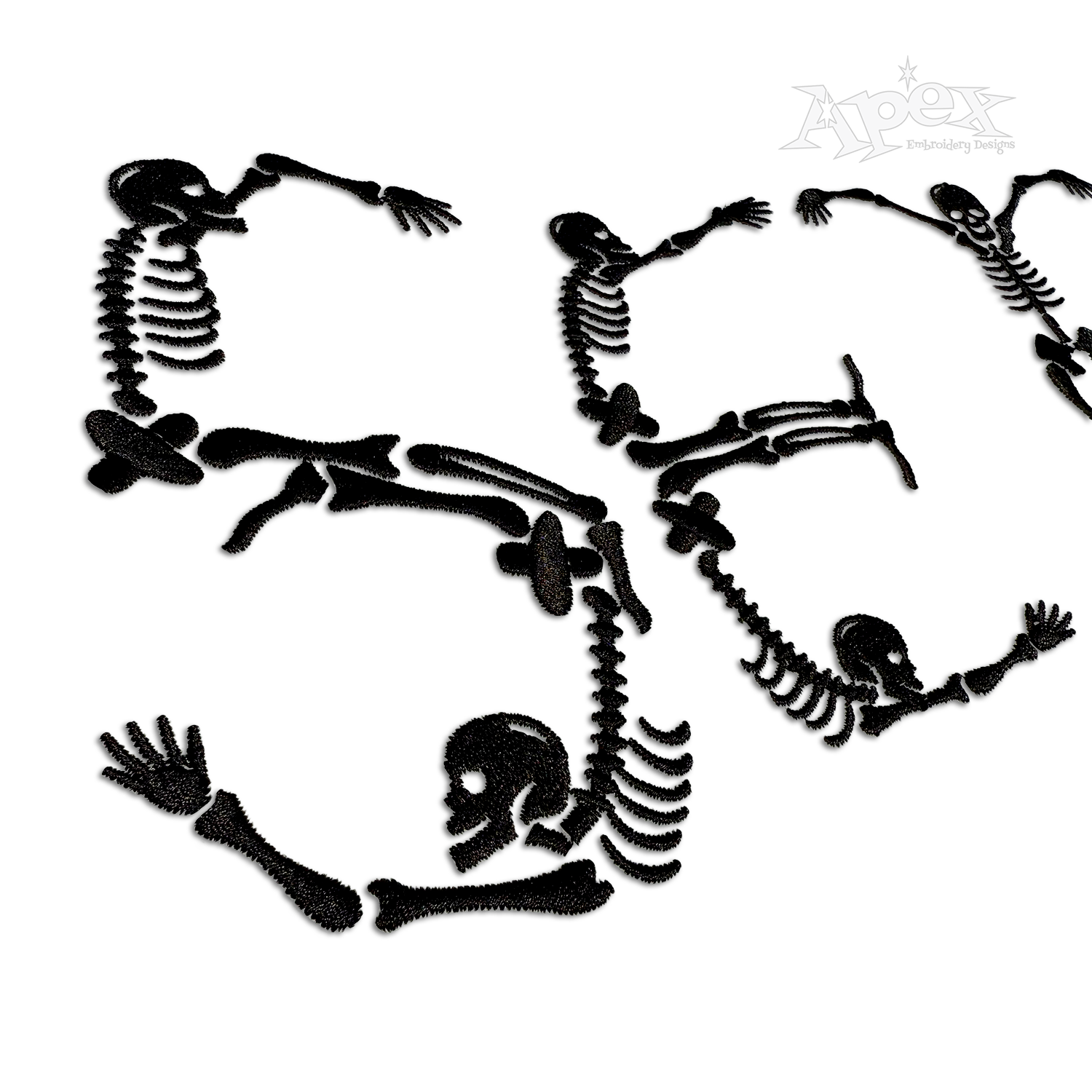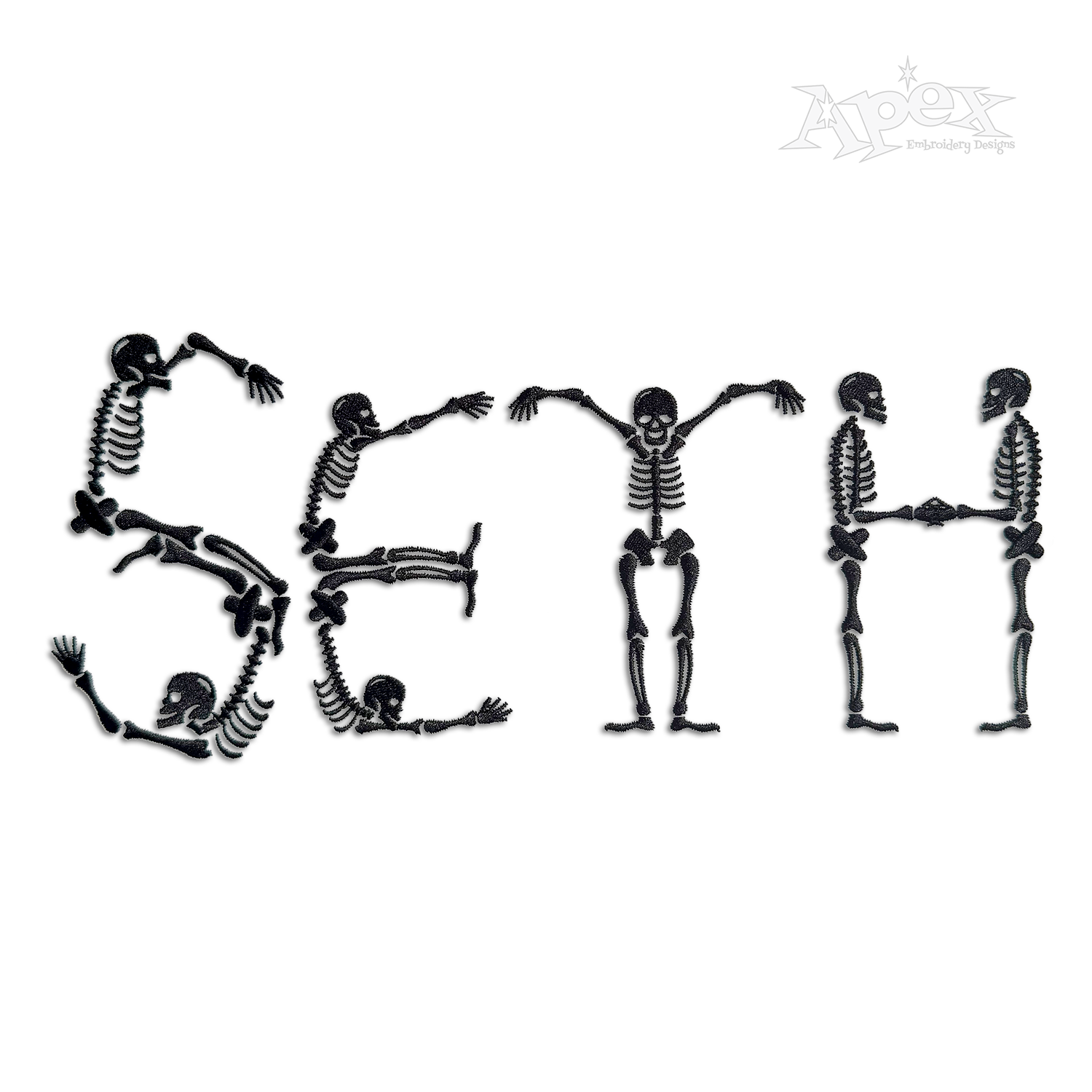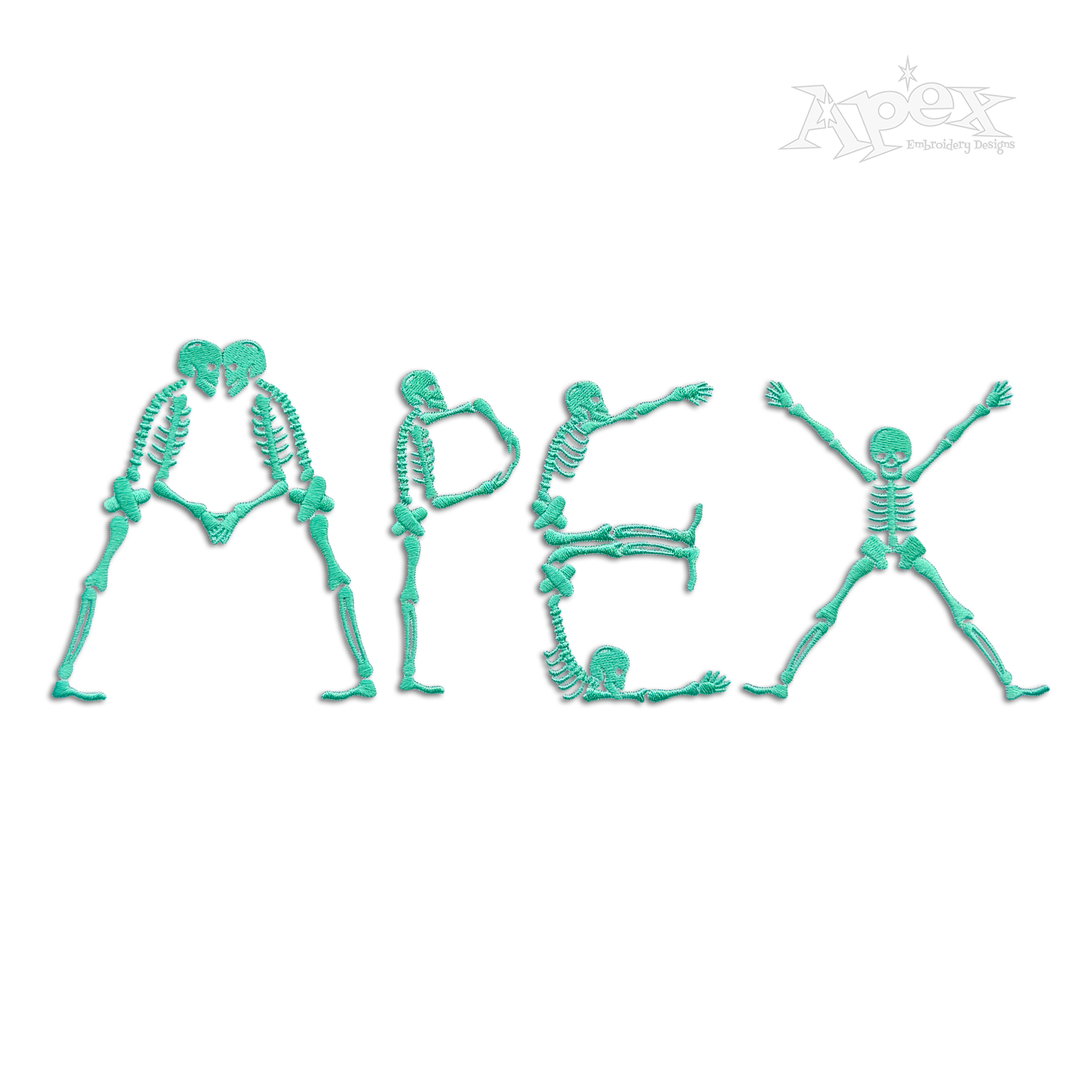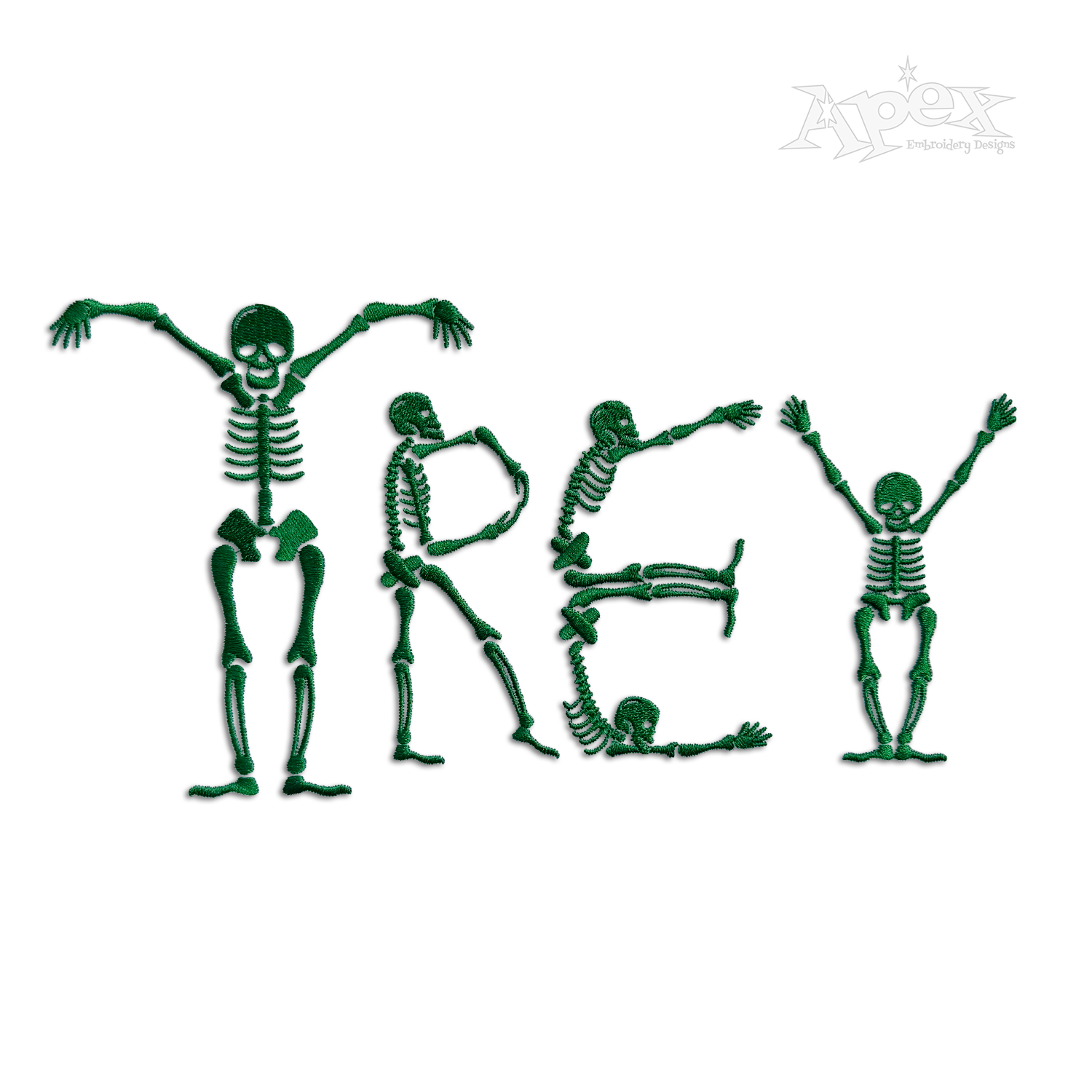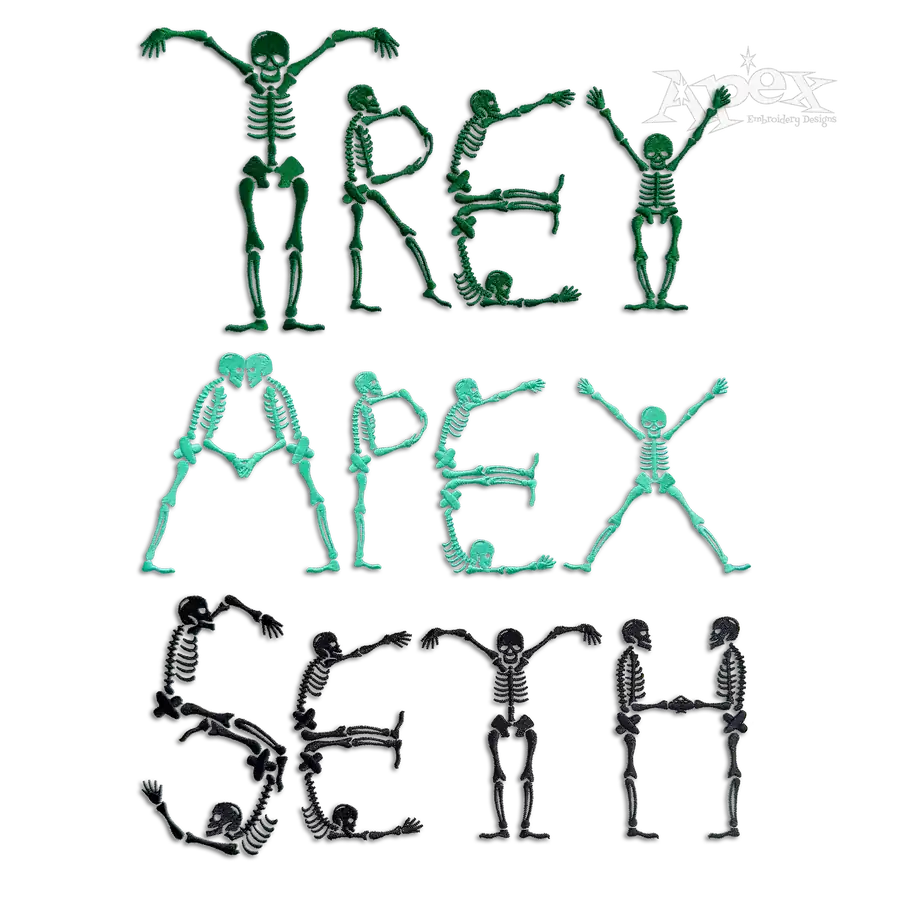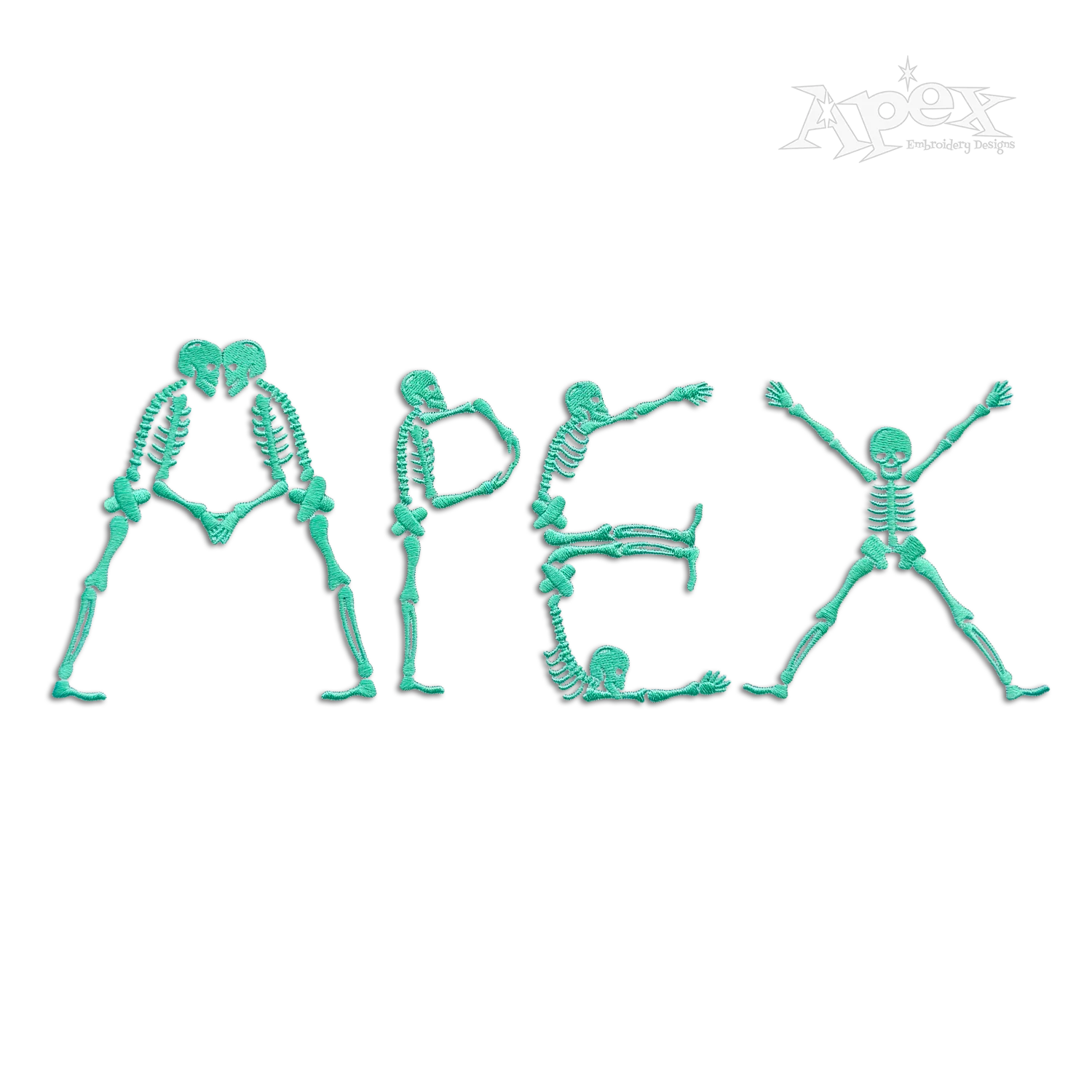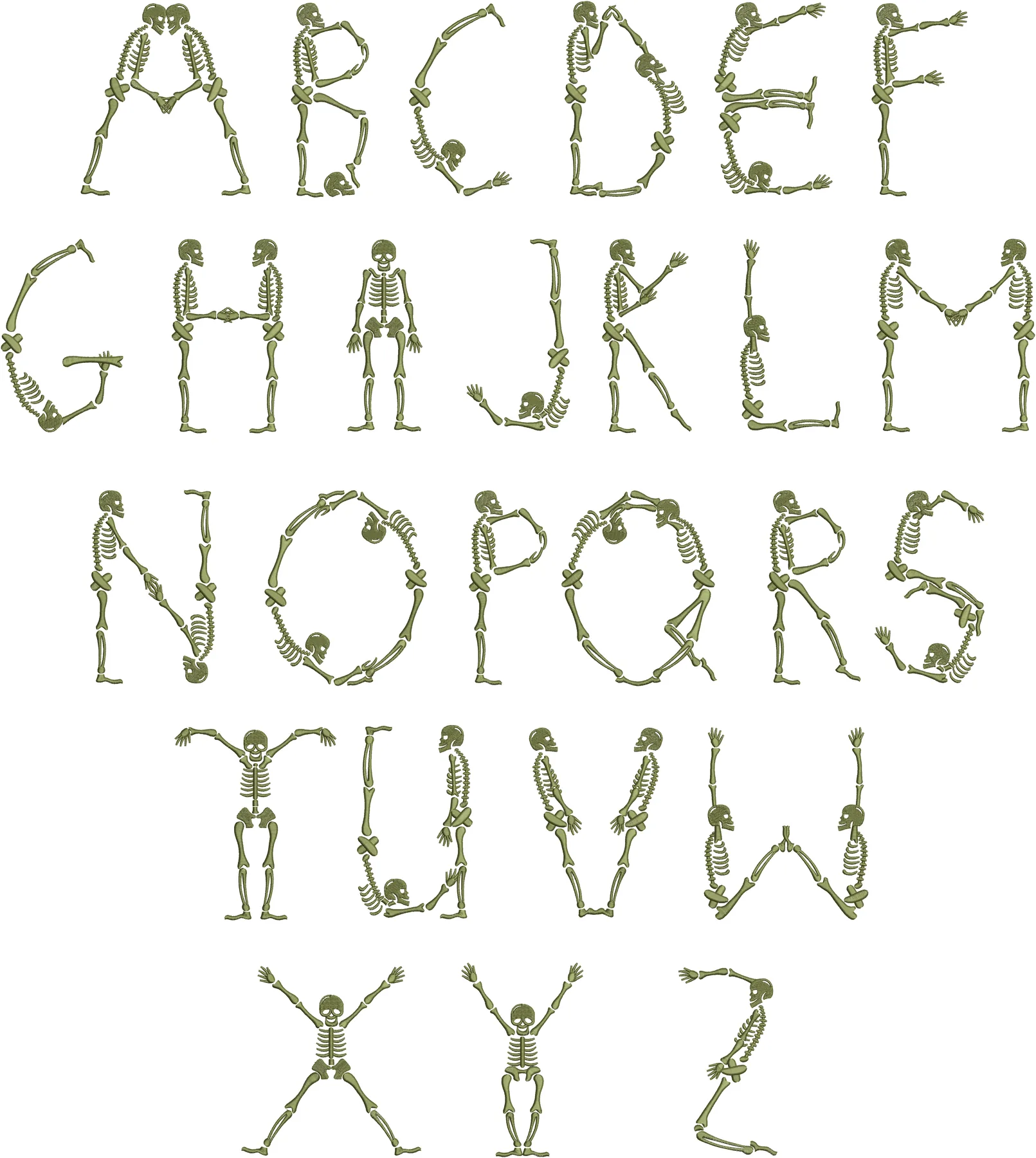
Skeleton Alphabet Embroidery Font
When autumn’s crisp chill sweeps through the studio, our embroidery needles turn toward the delightfully macabre. Inspired by vintage anatomical plates and playful gothic whimsy, the Skeleton Alphabet was digitized to bring an artisanal, bone-chilling charm to your seasonal embroidery hoop. Every letterform is thoughtfully assembled from stylized bone segments, curved rib arches, and articulated joints that form remarkably readable, expressive typography. The result is a spirited Halloween embroidery font that effortlessly balances eerie charm with sophisticated stitchcraft, ideal for statement autumn apparel and bespoke spooky decor.
Project Ideas for Skeleton Alphabet
Whether crafting playful seasonal wear or high-end gothic accents, these bone-structured letters add instant character to a wide array of textile goods:
- Canvas Trick-or-Treat Totes: Stitch an oversized 6-inch initial on heavy cotton duck or washed linen candy sacks for personalized heirloom Halloween keepsakes.
- Cozy Fall Sweatshirts: Create high-impact center chest initials on vintage-washed fleece pullovers or oversized hooded sweatshirts.
- Gothic Holiday Table Linens: Embroider contrasting ivory bone monograms onto moody black linen table runners and cocktail napkins for autumn dinner gatherings.
- Lounge Sets & Seasonal Sleepwear: Personalize the pocket or chest of pajama tops and brushed cotton robes for autumn family celebrations.
- Bespoke Wall Hangings & Pillows: Frame a singular 5-inch monogram inside seasonal wreath borders on velvet or heavy twill accent pillows.
Given the striking silhouette of skeletal joints and marrow contours, strategic placement helps the letterforms truly stand out:
- Center Chest Placement: The 5-inch and 6-inch sizes provide exceptional balance across the chest of sweatshirts, denim jackets, and casual sweaters.
- Tote Bag Focal Point: Position a bold initial directly in the upper-center third of canvas totes and seasonal grocery bags to maintain visual proportion when filled.
- Jacket Back Accents: Use the 6-inch height as a commanding solo initial or spell out spirited seasonal words across the shoulder blades of a distressed jacket.
- Accent Pillow Displays: Center a 4.5-inch or 5-inch letter on 18-inch square toss pillows to create a sophisticated, haunting living room accent.
Skeleton Alphabet Craft & Letterform Details
Digitizing skeletal forms requires an intricate balance between anatomical character and flawless stitch physics. Rather than relying on simple linework, each bone is sculpted using high-density satin stitches that curve organically along the natural contours of stylized femurs and vertebrae. We meticulously engineered the directional flow of each satin column so the stitch reflections catch light like polished ivory, giving each letter a dimensional, tactile lift from the surface of the fabric.
Special attention was poured into the joints and knuckles of each character. Node intersections feature carefully calibrated underlay foundations that support dense satin caps without creating hard lumps or thread puckering. Every entry and exit point has been plotted with calculated efficiency to reduce unnecessary jump stitches and maintain smooth, crisp edges on everything from dense fleece to crisp woven canvas. It is a font designed to stitch with smooth, effortless rhythm while delivering unforgettable seasonal personality.